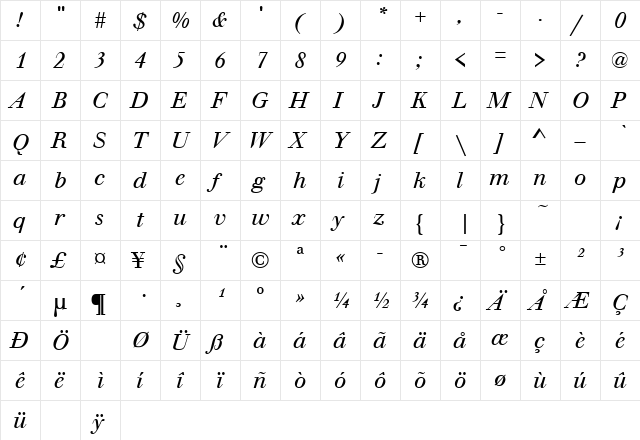
Walbaum Italic Font Preview
Walbaum Italic
Walbaum Italic Font Details
Design Context for Walbaum Typeface
Walbaum takes a measured approach to typography — its balanced proportions and neutral character make it a reliable workhorse for both digital and print work. The slanted form adds forward momentum and visual energy.